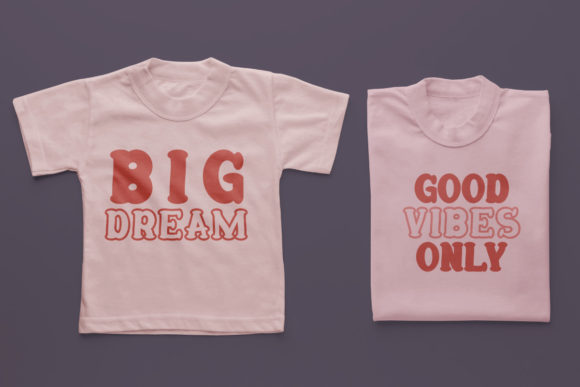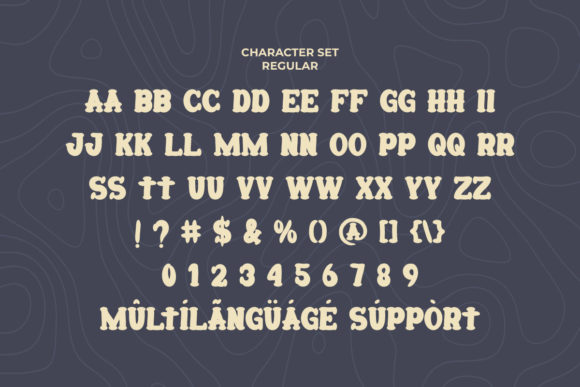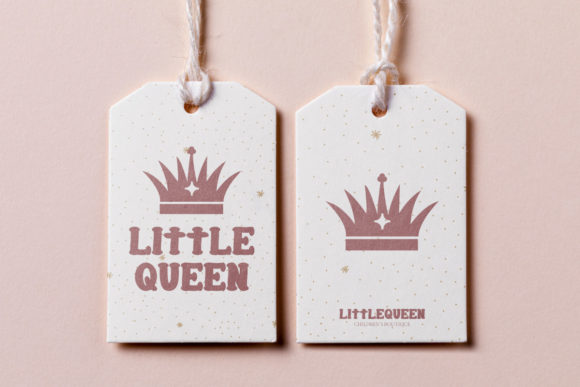
Introduction to Popovers Font
Do you remember the feeling of excitement when working on a creative project and stumbling upon the perfect design resource? For designers, finding that one special font can be the key to elevating an entire project. And that’s exactly what the Popovers Font offers – a touch of magic that will take your designs to the next level.
With its fancy and outlined display style, Popovers Font is a free download that’s perfect for adding a pop culture comic flair to your designs. Whether you’re working on a digital or print project, this high-quality font is sure to bring a smile to your face and make your designs stand out. Its transparent background makes it easy to use on any background, giving you complete creative freedom.
Key Features of Popovers Font
- High-quality, professional font suitable for various creative projects.
- Design resource ideal for projects requiring a modern and elegant touch.
- Unique transparent background design element adds a sophisticated look.
- Perfect for designers and artists seeking a high-quality design resource for their next project.
Honest Review: Popovers Font
As a designer, I’m always on the lookout for high-quality design resources to elevate my creative projects. Recently, I stumbled upon the Popovers Font and decided to give it a try.
- ✨ The font is extremely versatile and works well for both digital and print projects.
- ✨ The transparent background feature makes it easy to customize and combine with other design elements.
- ⚠️ The font library is relatively small, which may limit its use for more complex projects.
- ⚠️ Some users may find the font to be too playful or trendy for more formal or professional projects.
Overall, I’m impressed with the Popovers Font and would definitely recommend it to designers working on creative projects. It’s a great addition to any design resource library, and its high quality and flexibility make it a valuable asset for any project.
Popovers Font
Popovers Font is perfect for creating a unique and eye-catching design for your next creative project.
Popovers Font is a versatile design resource that can be used in a variety of creative projects. To get the most out of it, try the following:
Use it in conjunction with other design elements to create a unique and eye-catching design.
Use the font with a transparent background to create a design that stands out.
Popovers Font is commonly used in a variety of creative projects, including:
Business cards and brochures
Posters and flyers
Presentations and reports
Websites and landing pages